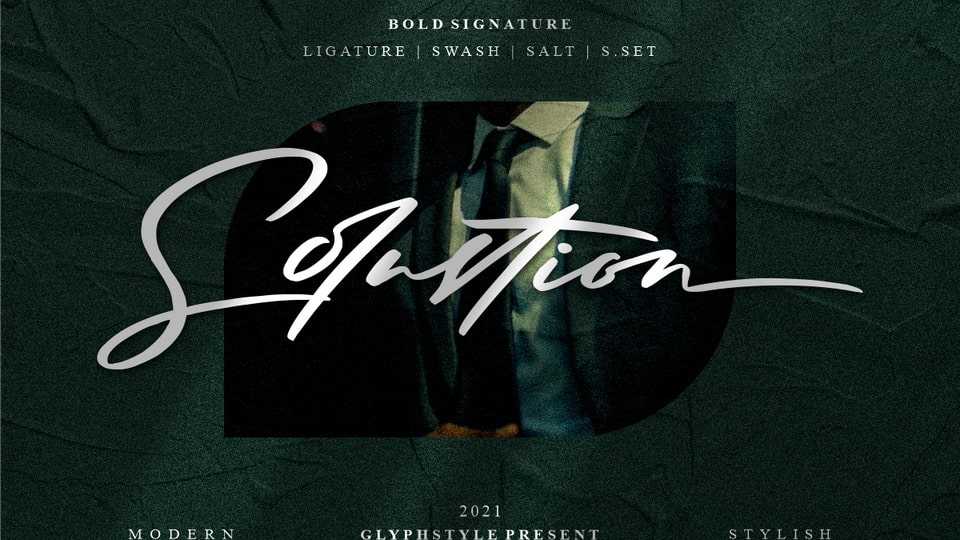
Download Solustion font, a signature style script that looks both bold and sheer. An elegant looking font and lots of unique characters like natural hand strokes.